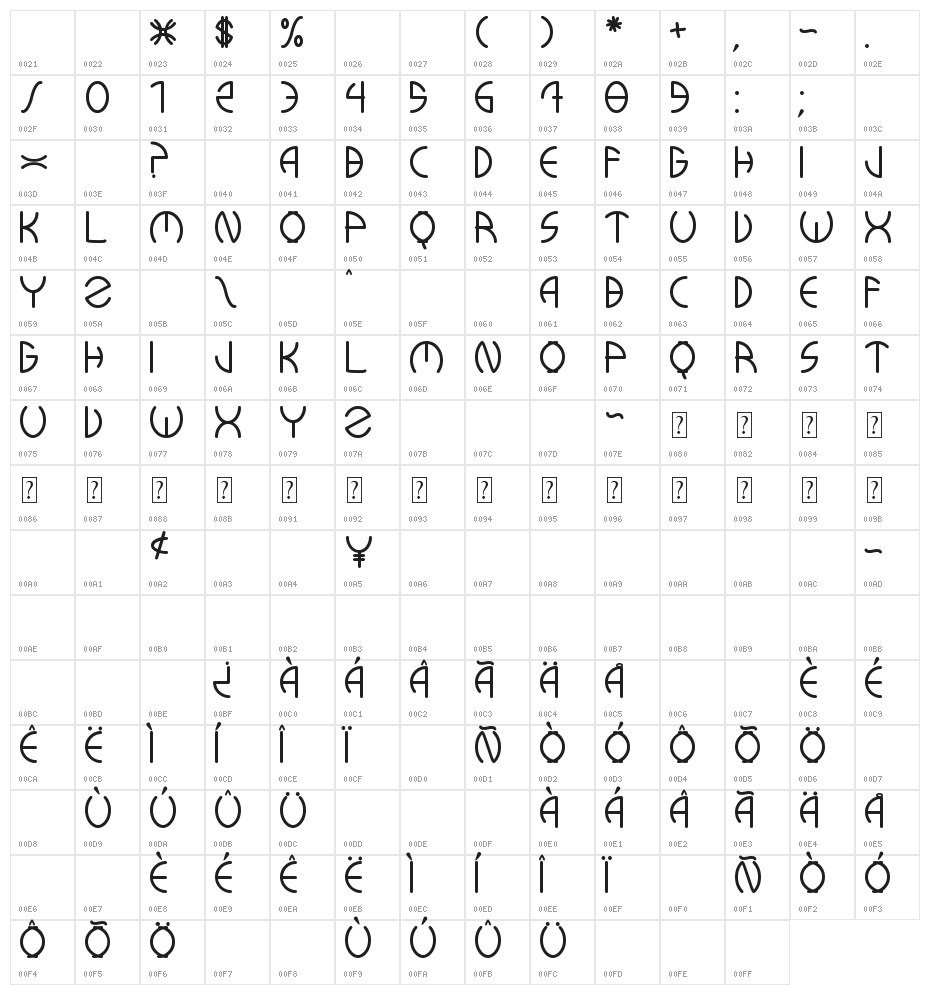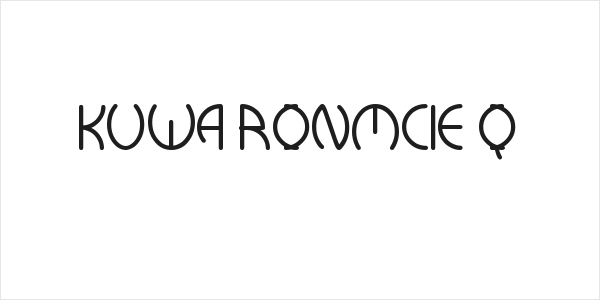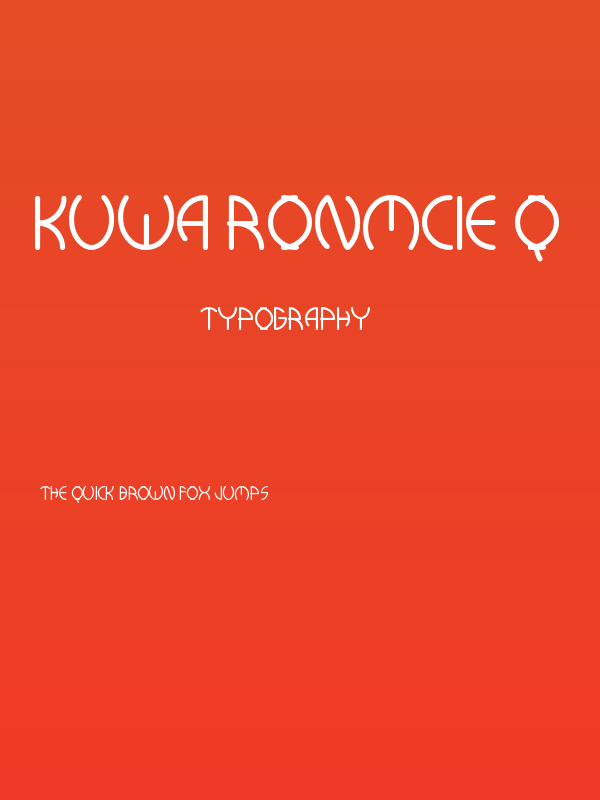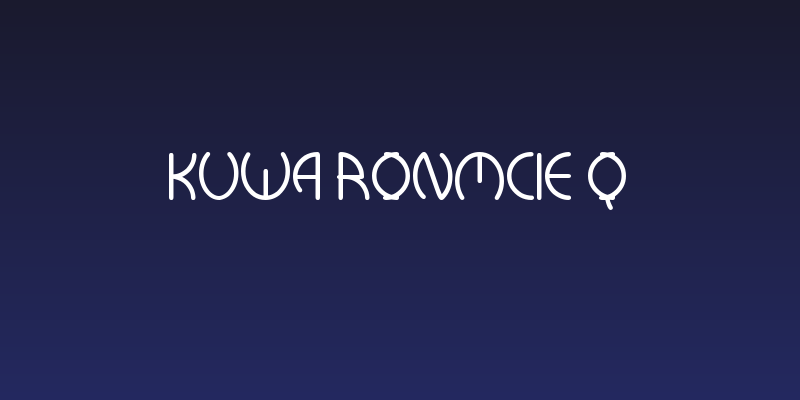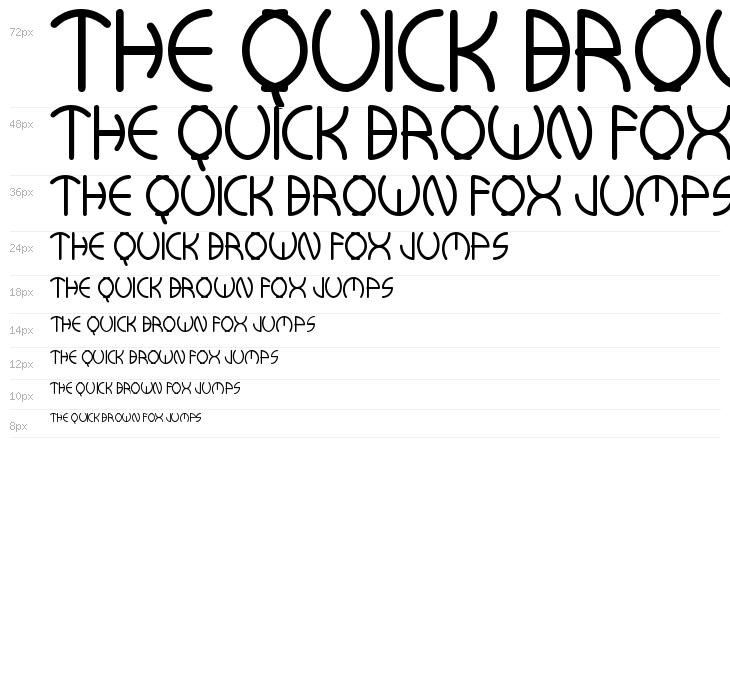
kuwa ronmcie q Font
kuwa ronmcie q Description
This font features a unique and modern design with a futuristic flair. The characters are composed of smooth, continuous lines that form rounded and geometric shapes, giving it a distinct and eye-catching appearance. The uppercase and lowercase letters maintain a consistent style, with some characters exhibiting a mirrored or reversed effect, adding to its unconventional look. The numerals and special characters follow the same design principles, ensuring a cohesive visual identity across all elements. This font's innovative style makes it suitable for projects that aim to stand out and convey a sense of modernity and creativity.